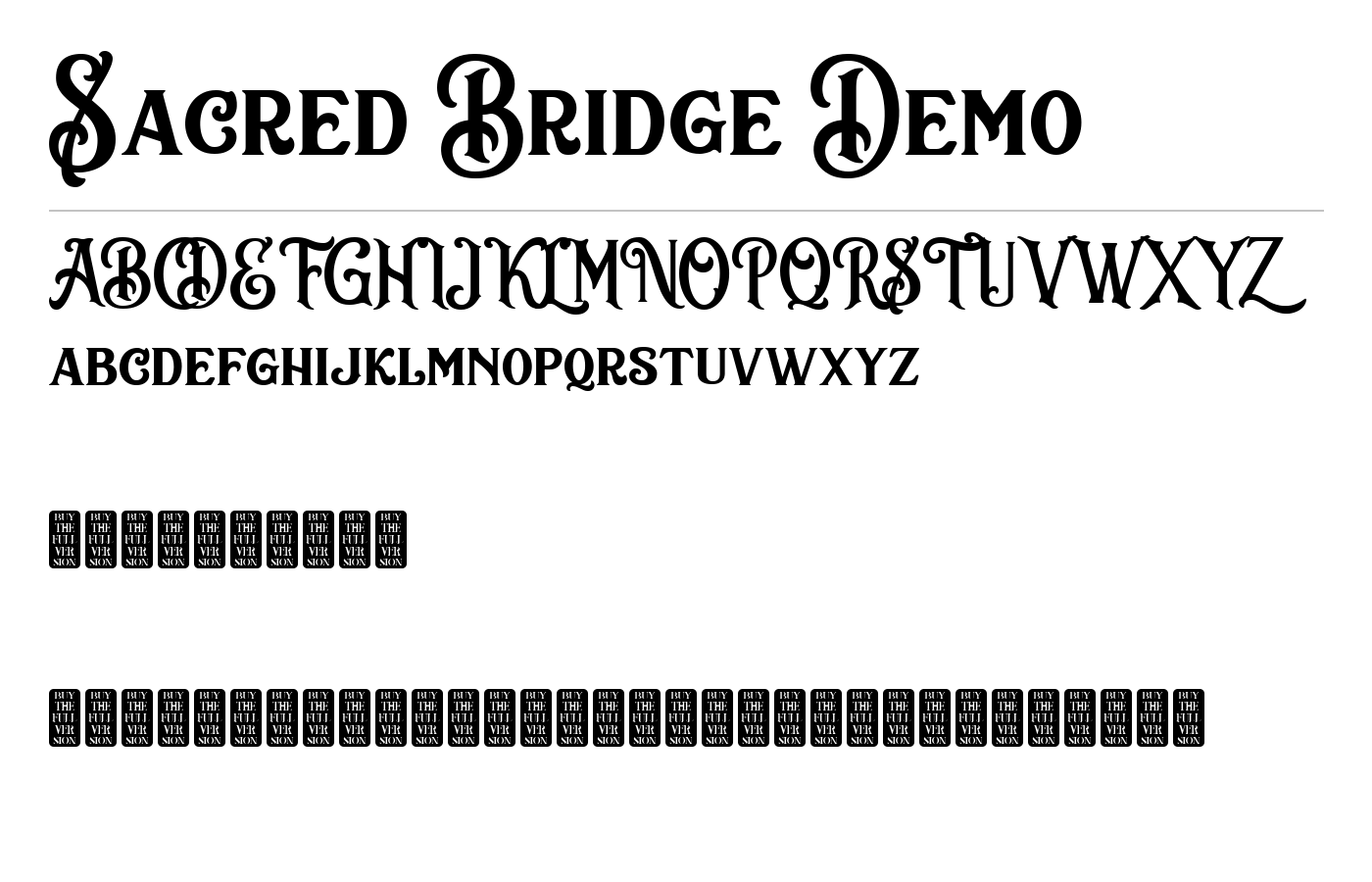
Sacred Bridge is a decorative serif font that combines bold, solid strokes with intricate, ornamental flourishes, creating a vintage and elegant appearance. Its distinctive uppercase letters feature elaborate swirls and unique character details, making it ideal for eye-catching headlines, logos, and branding projects that aim to convey a sense of tradition and artistic flair. This font works beautifully in designs that need a strong, classic personality with a touch of sophistication and creativity.
Sacred Bridge Font
About Sacred Bridge Font
| Font family | Sacred Bridge Font |